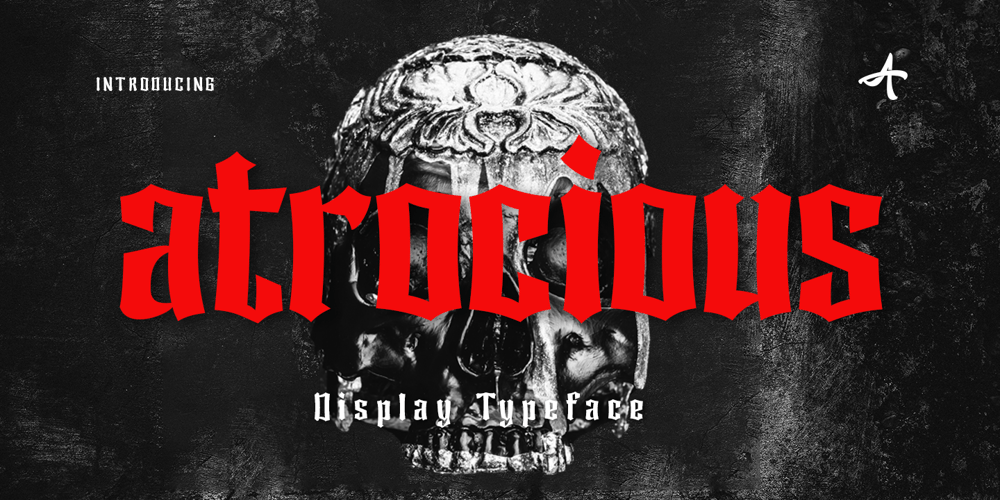
Actrocious Font Family was designed by Ardyana Putra and published by Ardyanatypes. Actrocious contains 1 styles and family package options. Atrocious – Display Typeface exudes a Gothic aura that’s both eerie and distinctive. Its captivating design adds an unparalleled artistic charm, evoking a strong air of mystery. This font is perfect for creating impressive visuals, with OpenType features and multilingual support for limitless self-expression. Ideal for captivating book titles, enhancing cinematic experiences, or infusing graphic designs with a unique touch.